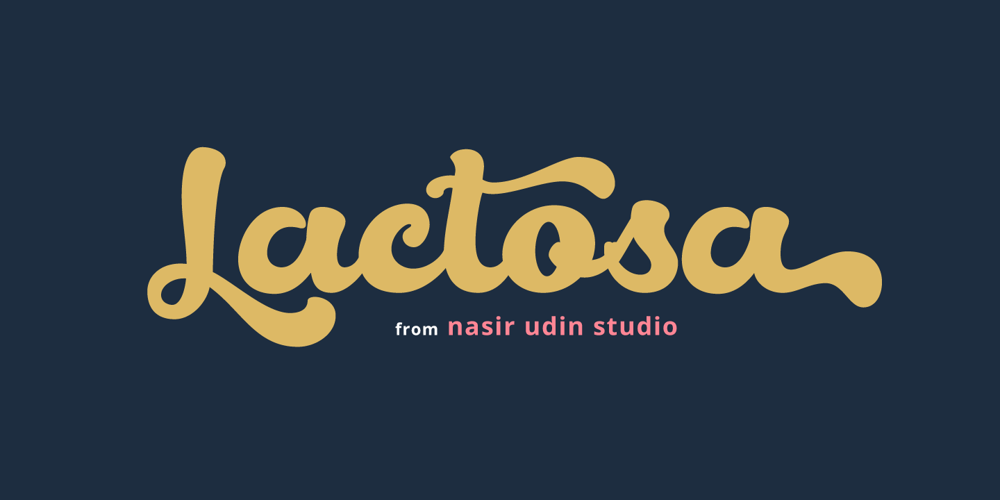
Lactosa Font Family was designed by Nasir Udin and published by Nasir Udin. Lactosa contains 1 styles and family package options. Lactosa is a sweet script font that is bold, full of energy, and curvaceous! The font comes with alternates for you to play with, and can amplify the uniqueness of your designs.